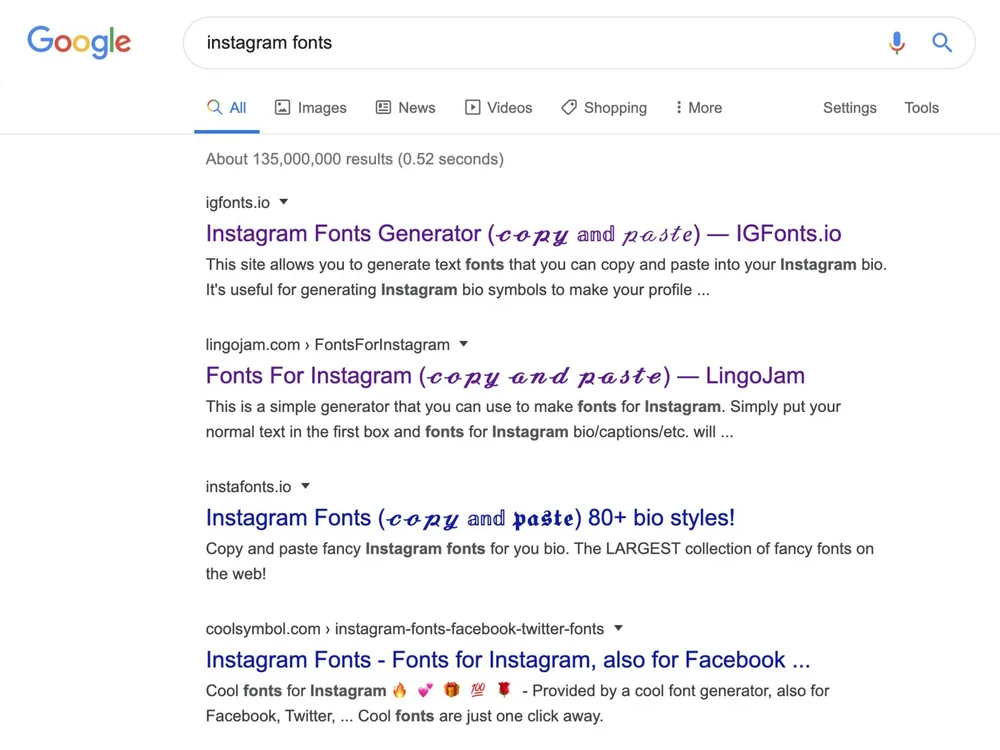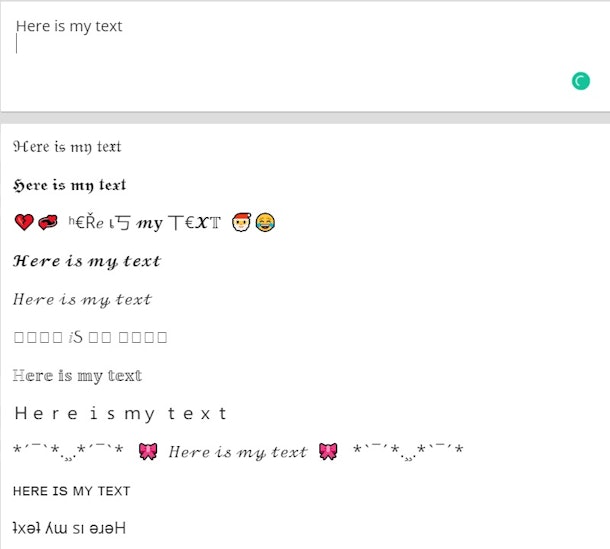
This is a generator for text fonts of the cool variety.
Halloween font lingojam. Simply enter your text select a color and text effect and hit generate button. The following tool will convert your text into images using halloween fonts. Create text images with halloween fonts. This discord font generator creates fancy text by using some of the 100000 characters other than the ones on your keyboard.
For example the text was introduced because certain. Some of the symbol alphabets used were introduced to the unicode standard because they were needed by certain groups of people. After generating your fancy text symbols you can copy and paste the fonts to most websites and text processors. Creepy is a great way to create spooky text which would be more fun to use especially on occasions such as halloween or for themed parties as well.
100 fancy font generator with copy and paste cool symbols different calligraphy font generator copy and paste cute fancy fonts and letters pretty fonts lingojam fancy text gothic font fancy word generator curcive font generator. So currently this is basically a duplicate of the above but i think ill try to collect a few more cool text fonts like the old enlgish one and. I made a fancy text generator which showcases all sorts of other fonts using weird unicode symbols. The different text fonts are all a part of the unicode standard which means that theyre not like normal.
This hacky distorted text is pretty awesome but its only the beginning. You can then save the image or use the embed button to get image links. I noticed people were trying to find a generator like fancy letters but were ending up on actual font sites rather than generators of copy paste text like this one. Also if youre looking for messy text or glitchy text visit this creepy zalgo text generator another translator on lingojam.
If you are not satisfied with the result you may want to use our image tools to modify the image. Well as it turns out this isnt a creepy font instead its an abuse of unicode modifying characters to create creepy text. Creepy zalgo text generator copy and paste a translator to convert normal text into creepy zalgo text. For instance if you wish to create banners or invitation cards for halloween you can use the void text generator to generate a number of fonts from which you can choose one according to your own.